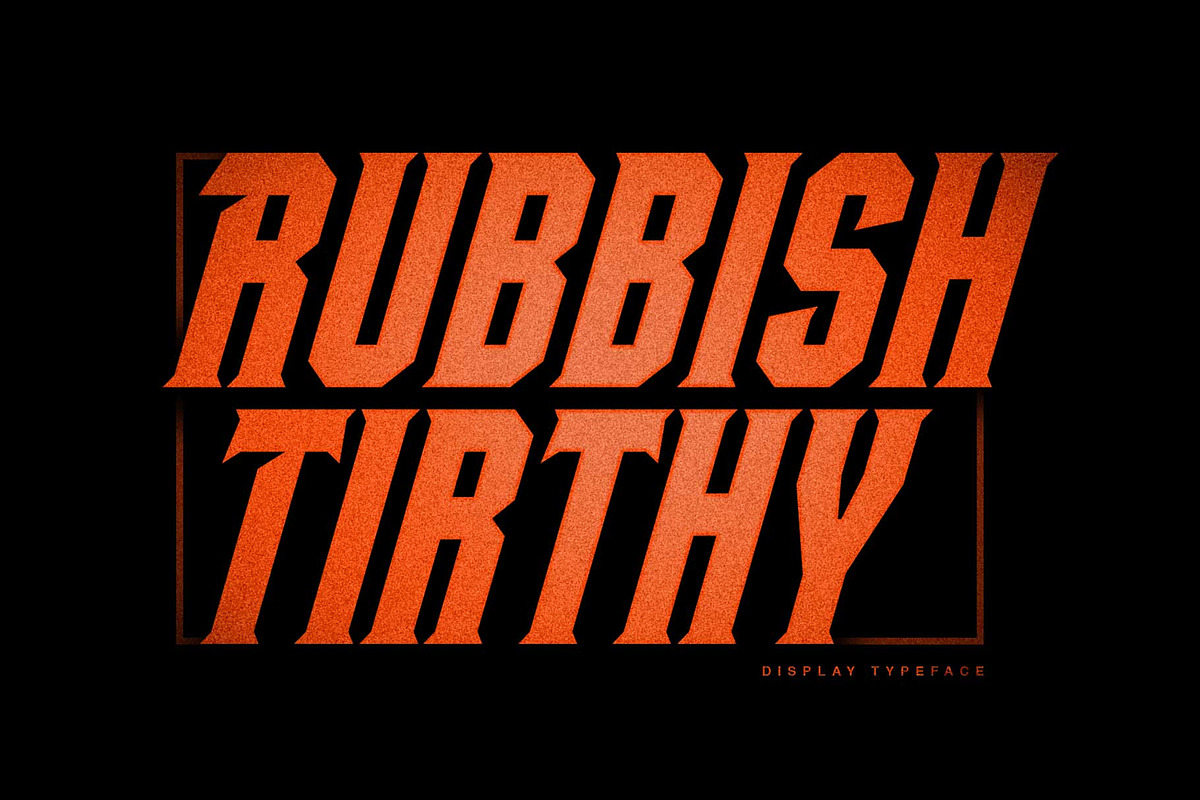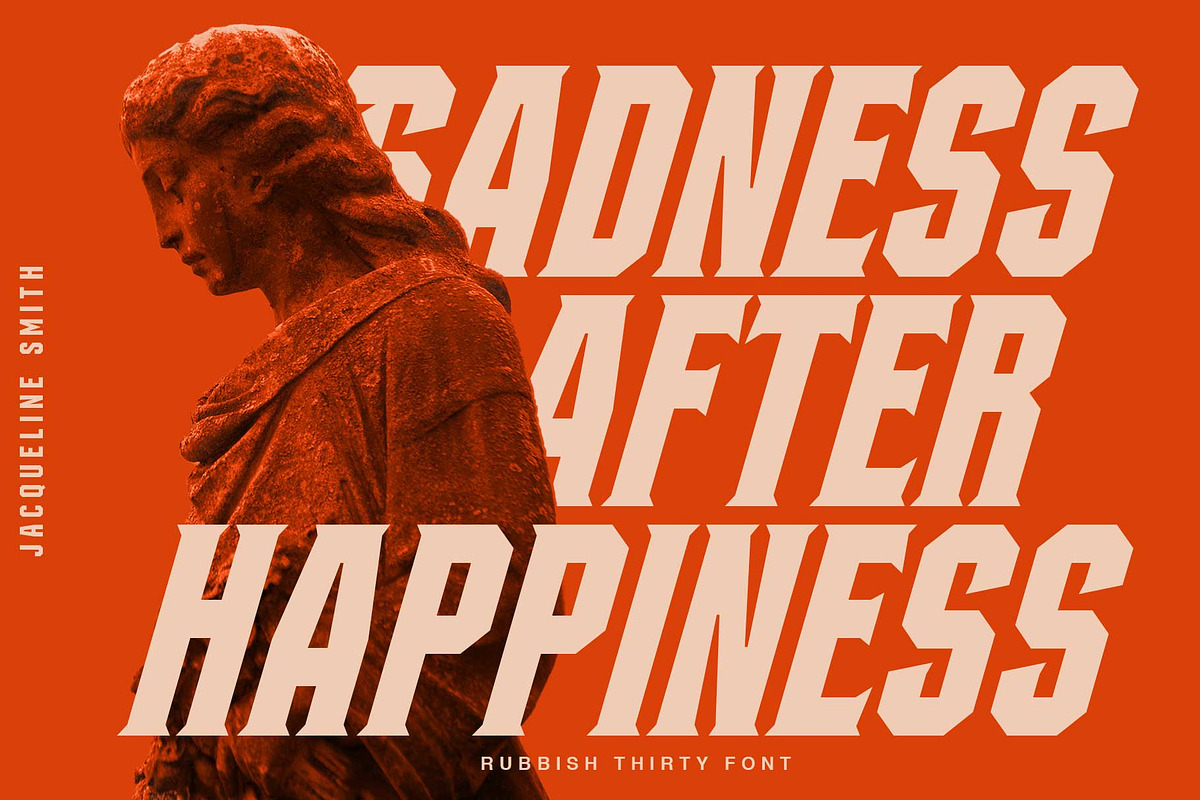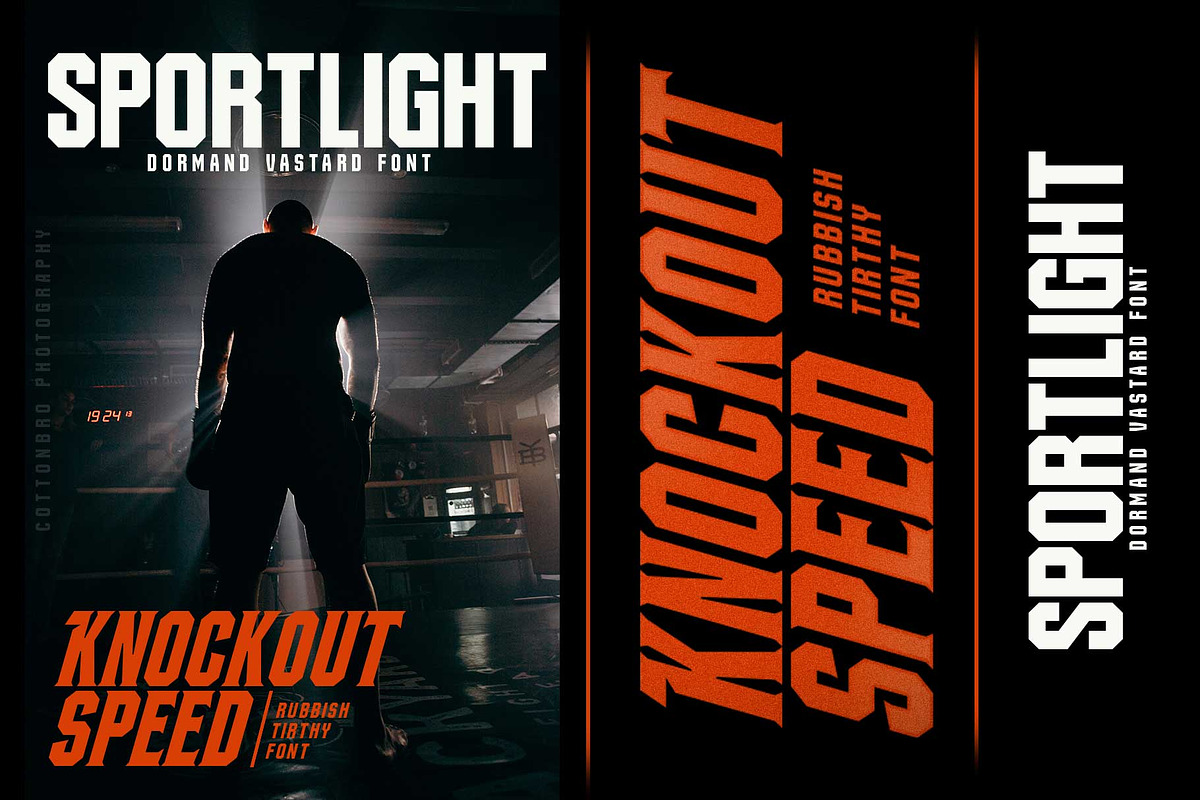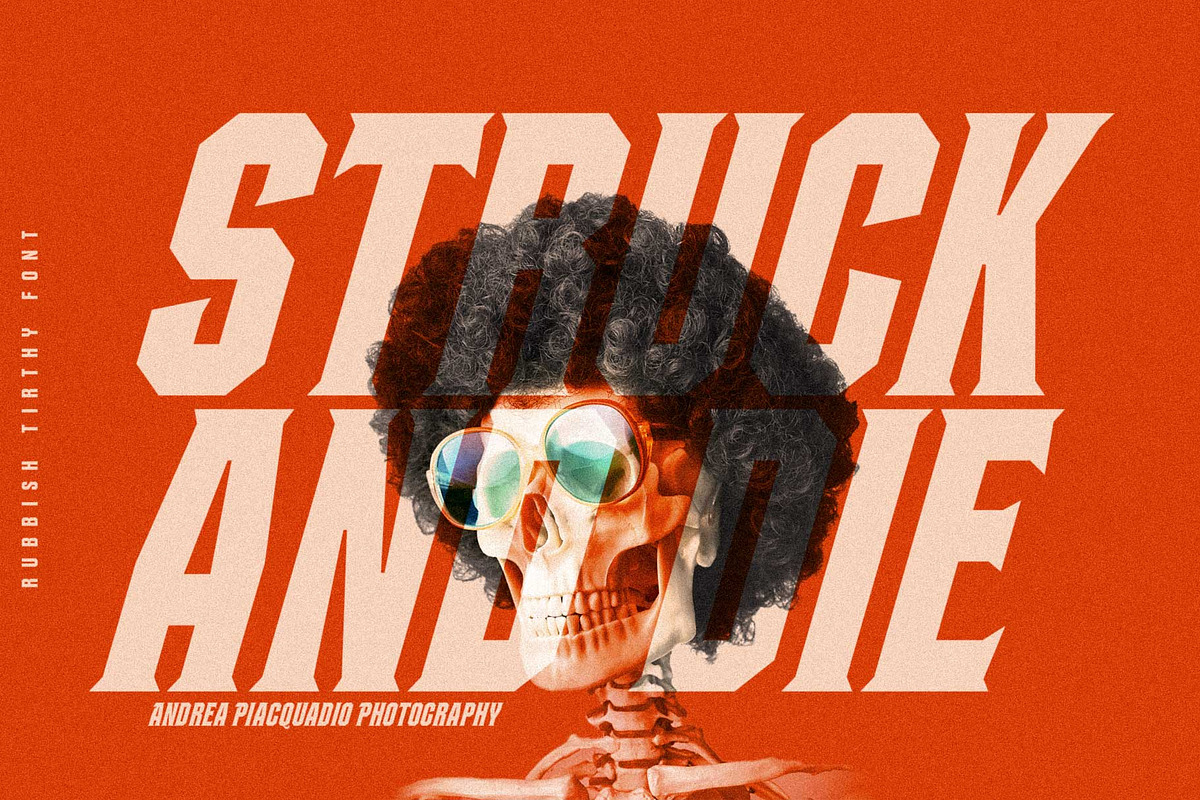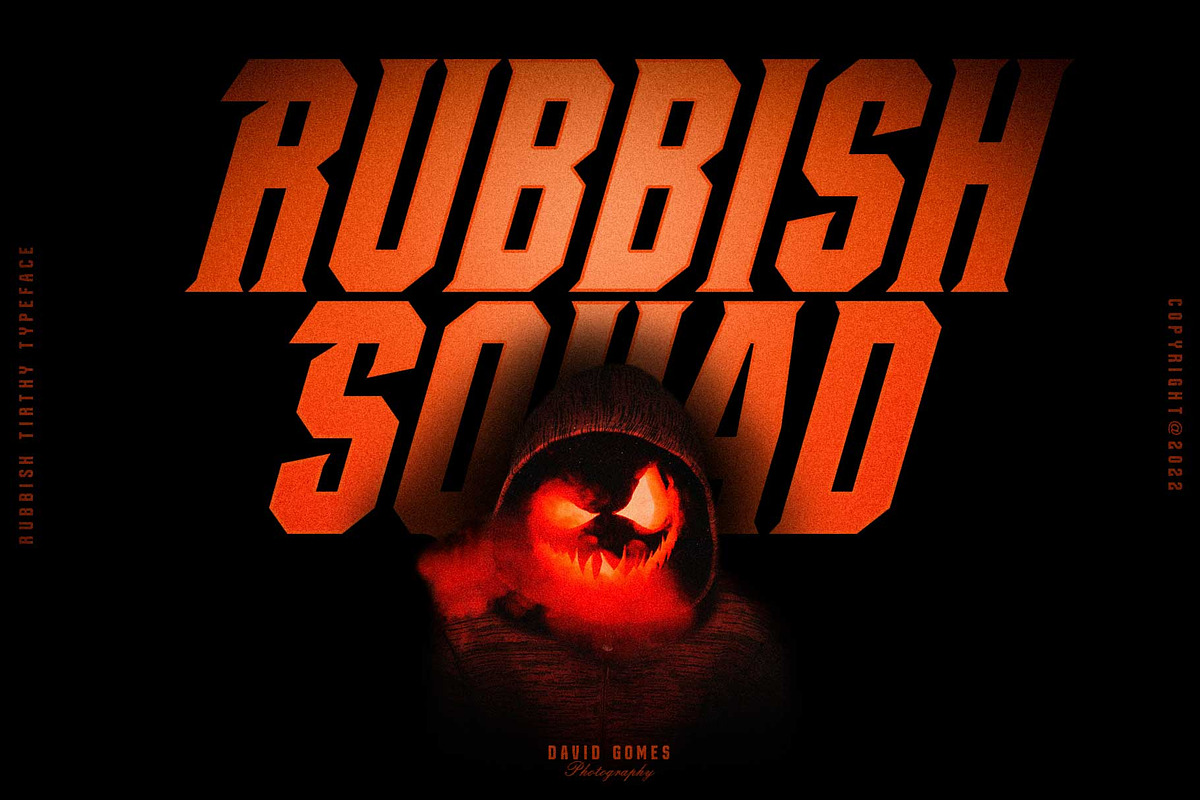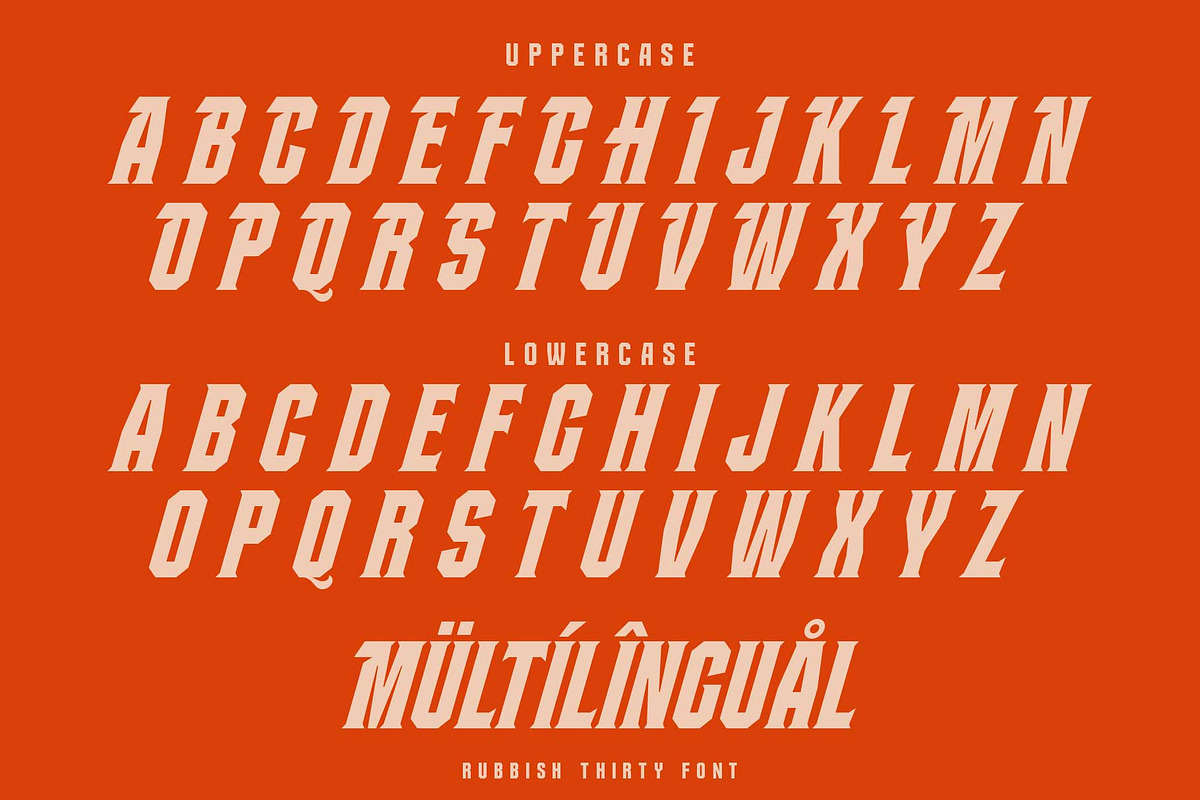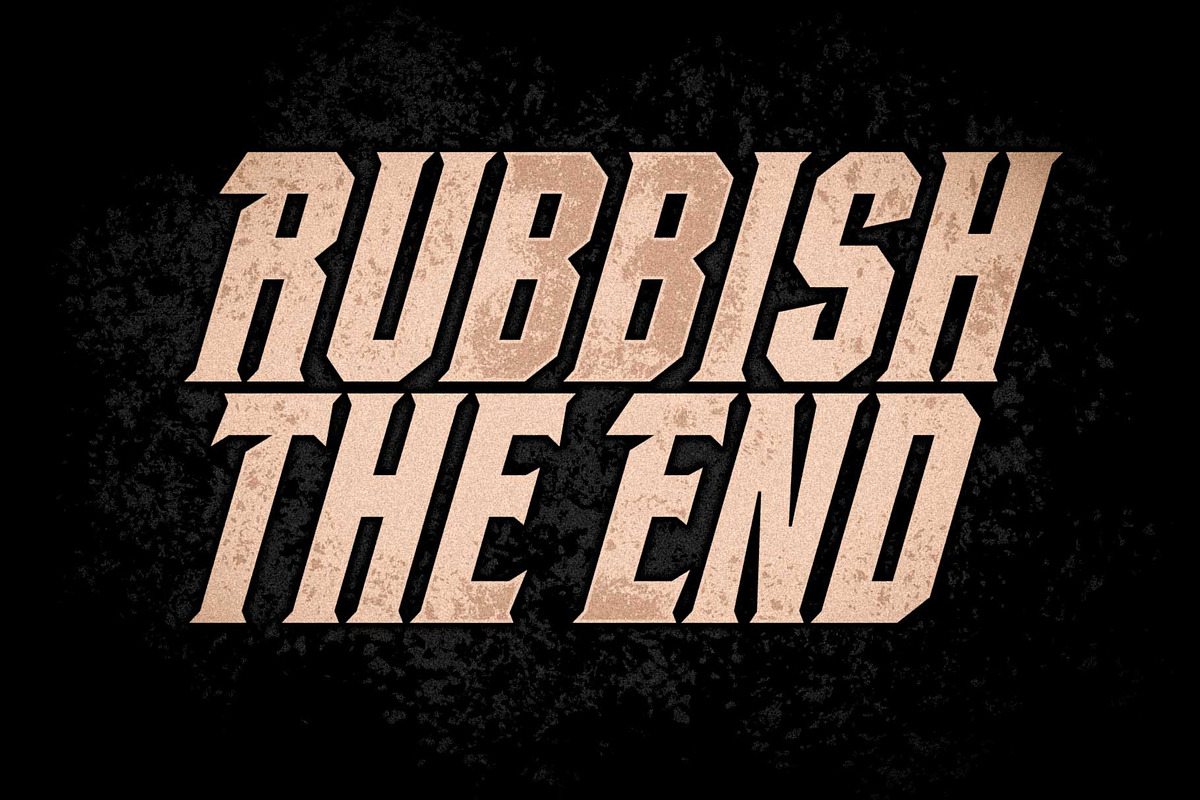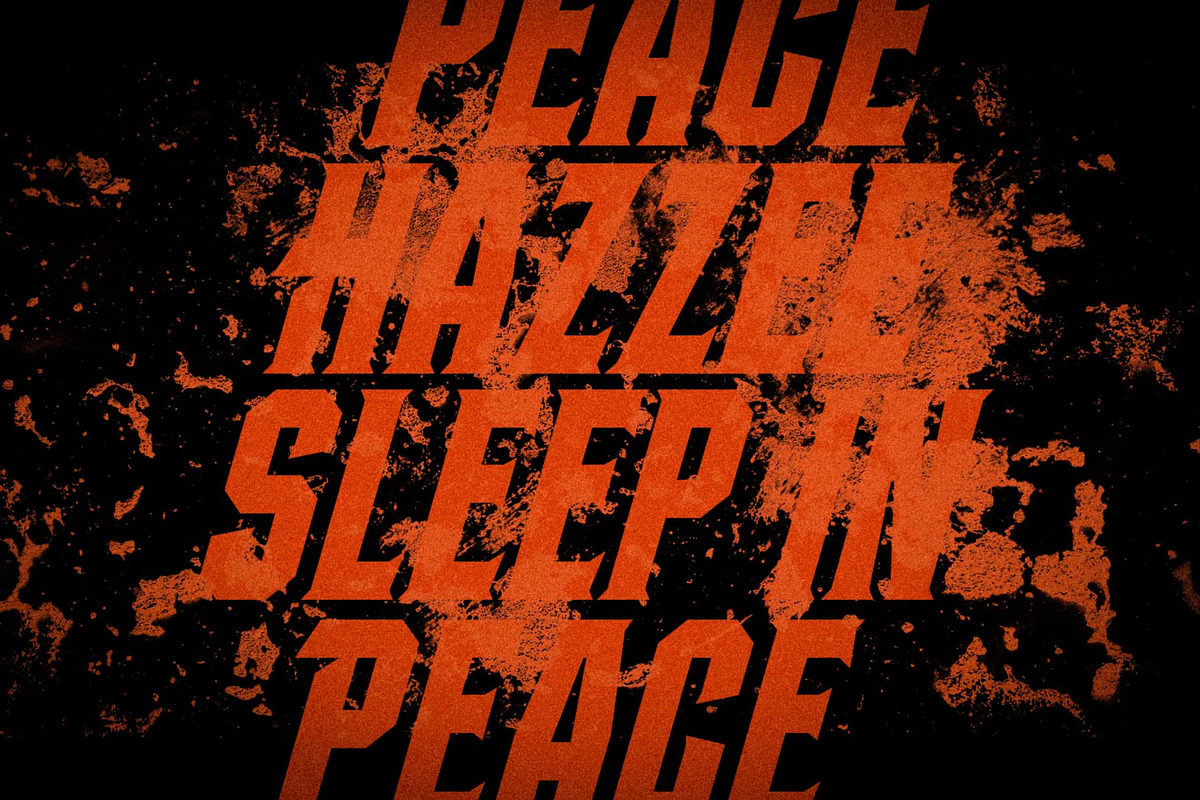
Rubbish Tirthy
I would like to introduce a new font, namely RUBBISH THIRTY. a font that has a very bold and strong style, make your design more attractive. Of course it will be very suitable for use on headlines, magazine covers, logos, t-shirts, business cards or other creative fields.